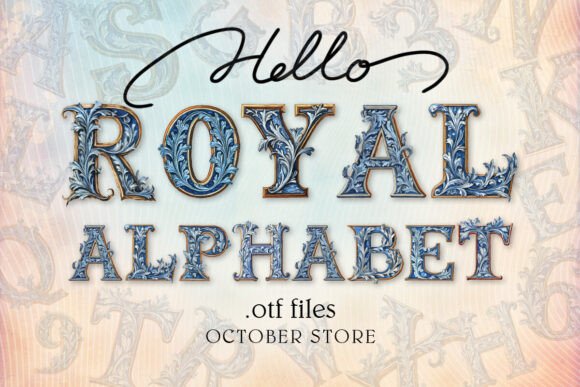
Blue Royal Alphabet Font – Free Download: Typography has always been more than letters on a page — it’s a form of art, a way to give words personality, elegance, and emotion. For projects that demand sophistication and a regal aura, few typefaces can match the majesty of the Blue Royal Alphabet Font.
This font isn’t just about writing; it’s about making a statement of grandeur. With its ornamental flourishes, meticulous detailing, and air of sophistication, Blue Royal Alphabet instantly transports your design into the realm of royalty. Whether you’re working on a wedding invitation, a luxury brand identity, or a commemorative project, this font adds the dignity and prestige that ordinary typefaces simply can’t replicate.
What is Blue Royal Alphabet Font?
Blue Royal Alphabet Font is a luxury ornamental typeface crafted with refined elegance. Available in OTF format, this font was designed with inspiration from regal aesthetics — the kind you see in royal crests, palace inscriptions, and classical European design.
Each letter is not just a character but a piece of art. Its curves, strokes, and embellishments evoke a timeless charm that instantly elevates your text into something extraordinary. Unlike minimal modern fonts, Blue Royal Alphabet embraces ornate sophistication, making it perfect for occasions and projects where words need to feel majestic and unforgettable.
Key Features of Blue Royal Alphabet Font
What sets this typeface apart is its royal craftsmanship:
Opulent Ornamentation – Intricate details give every letter a luxurious feel.
Timeless Elegance – Inspired by royal calligraphy and classic lettering traditions.
High-Impact Visuals – Perfect for creating focal points in your projects.
Unique Personality – Unlike generic serif or sans-serif fonts, it embodies luxury.
Why Choose a Royal-Inspired Typeface?
Typography is more than aesthetics; it communicates a mood. Using a royal font like Blue Royal Alphabet conveys:
Luxury and Prestige – Ideal for upscale brands, events, and publications.
Elegance and Sophistication – Makes even simple words feel graceful.
Historical Connection – Evokes classical traditions tied to nobility and grandeur.
Memorable Designs – Ensures your project stands out with a unique visual tone.
In short, this font is not for everyday use — it’s for those moments when you want to create an impact that lasts.
Where to Use Blue Royal Alphabet Font
Because of its ornate beauty, this font works best in contexts where presentation and elegance are paramount. Here are some perfect applications:
1. Wedding Invitations & Event Cards
Royal fonts are a favorite for weddings, anniversaries, and gala invitations. Blue Royal Alphabet can add a regal flourish that sets the tone for elegance.
2. Luxury Branding
If your brand caters to premium markets — jewelry, perfumes, couture fashion, or high-end hospitality — this font can represent your identity with grace.
3. Certificates & Diplomas
Its dignified structure makes it perfect for official documents that need to feel important and ceremonial.
4. Book Covers & Editorials
Historical novels, fantasy literature, or lifestyle magazines focused on luxury themes can benefit from its ornate beauty.
5. Logos & Packaging
Luxury product packaging, especially in industries like wine, skincare, or artisanal goods, can gain an elevated look with Blue Royal Alphabet Font.
6. Decorative Typography Projects
From monograms and signage to digital art, its decorative letters make for striking centerpiece elements.
Q5: What colors work best with Blue Royal Alphabet?
Royal palettes like gold, navy, burgundy, and emerald green enhance its luxurious character.
Final Thoughts
The Blue Royal Alphabet Font isn’t just typography — it’s a symbol of refinement and prestige. Every curve, flourish, and detail is designed to add an air of royalty to your projects.